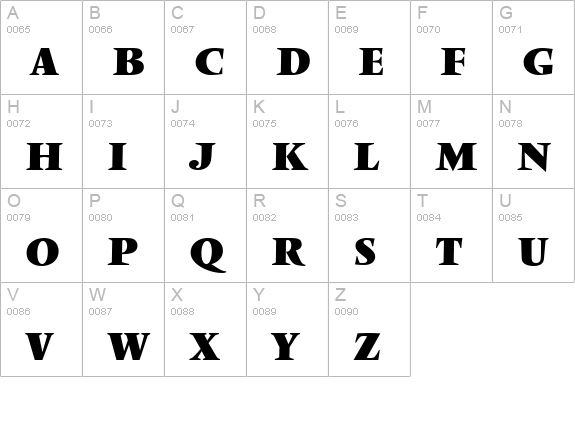
VendomeT Bold Font Details
VendomeT Bold is a strong, high-contrast variant in the VendomeT typeface family \xE2\x80\x94 well suited to headlines, attention-grabbing titles, and strong calls-to-action.
Introducing VendomeT Bold, a striking and versatile font that exudes confidence and elegance. This font is the perfect choice for those who seek to make a bold statement with their designs. Its strong lines and bold strokes command attention and leave a lasting impression. VendomeT Bold is a typeface that effortlessly combines modernity with a touch of classic charm. Its clean and sleek design makes it ideal for a wide range of projects, from branding and logo design to editorial layouts and packaging. Whether used in headlines, titles, or body text, VendomeT Bold adds a distinctive flair that captures the essence of sophistication. One of the most remarkable features of VendomeT Bold is its availability as a free download at FontsMarket.com. This means that designers and creatives can easily access this remarkable font without any cost. It's a generous offer that allows anyone to enhance their projects with this exceptional typeface. With VendomeT Bold, the possibilities are endless. Its versatility allows it to seamlessly adapt to different design styles and contexts, making it a valuable asset for both professionals and enthusiasts. The font's high legibility ensures that every word is effortlessly read, while its unique personality adds a touch of originality to any composition. Whether you're a graphic designer, a typographer, or simply someone looking to add a touch of sophistication to your work, VendomeT Bold is the perfect choice. Download it for free today at FontsMarket.com and unlock a world of creative possibilities. Elevate your designs and captivate your audience with VendomeT Bold - a font that truly stands out from the crowd.